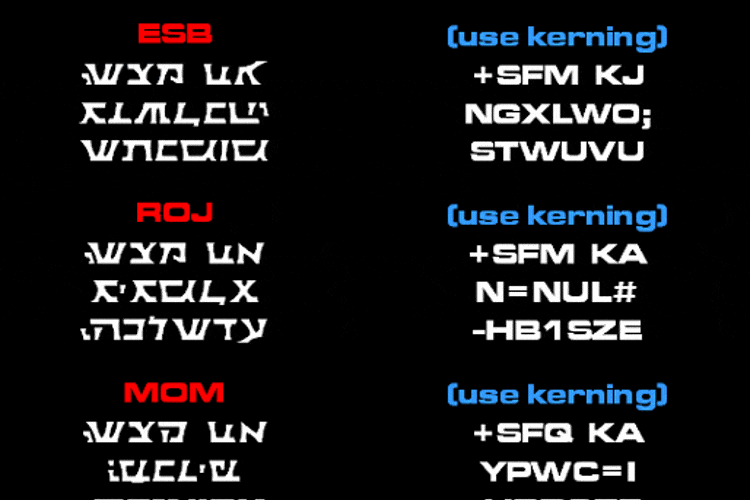
Sith Prophecy Font
Sith Prophecy Font is Star Wars font based on the writing that appears on Darth Vader’s chest box.
The text that appears on the chest box in The Empire Strikes Back was different from the text on the Return of the Jedi version. (There was no text on Vader’s chestbox in A New Hope.) In addition, several other versions have cropped up over the years, all of which were created or modified after the original movies were made. In all, I’ve found six different versions of the chest box text. My font allows you to re-create all six of these versions. I’ll go through each of these below.
Empire Strikes Back
Return of the Jedi
Magic of Myth
Star Wars Visual Dictionary
Art of Star Wars
Planet Hollywood / Netherlands